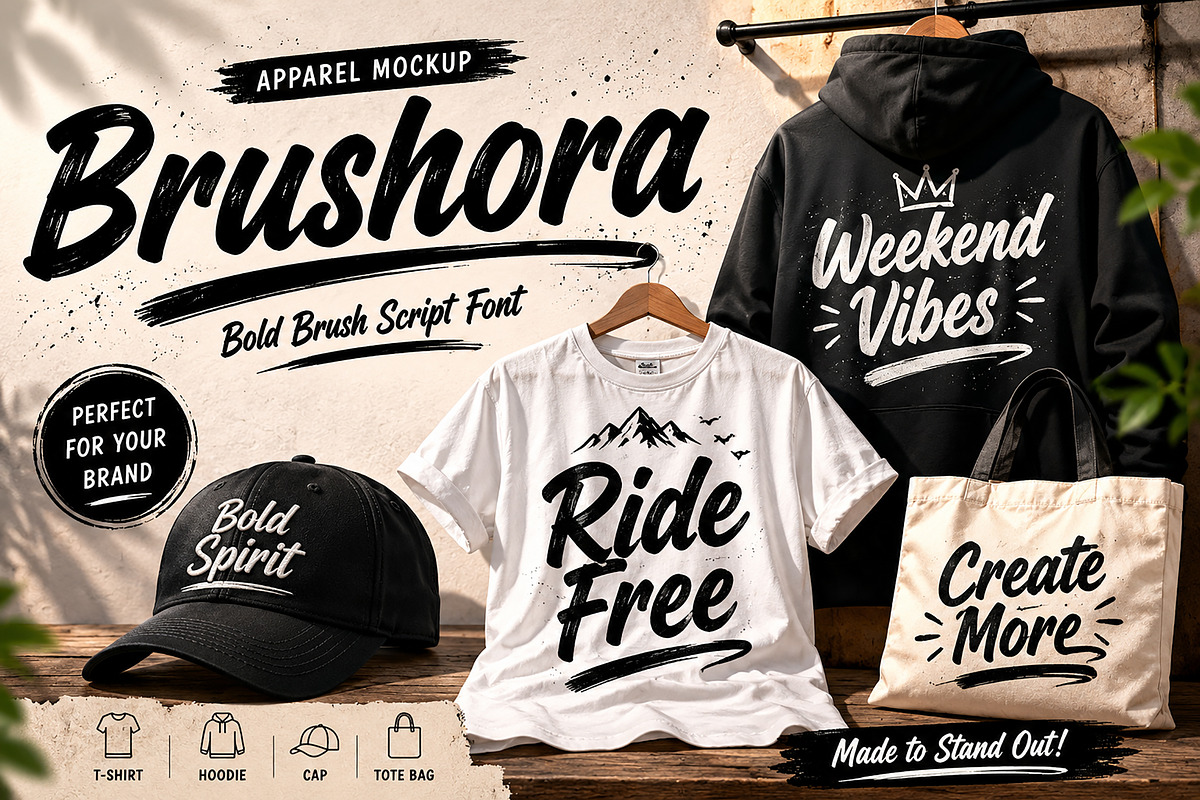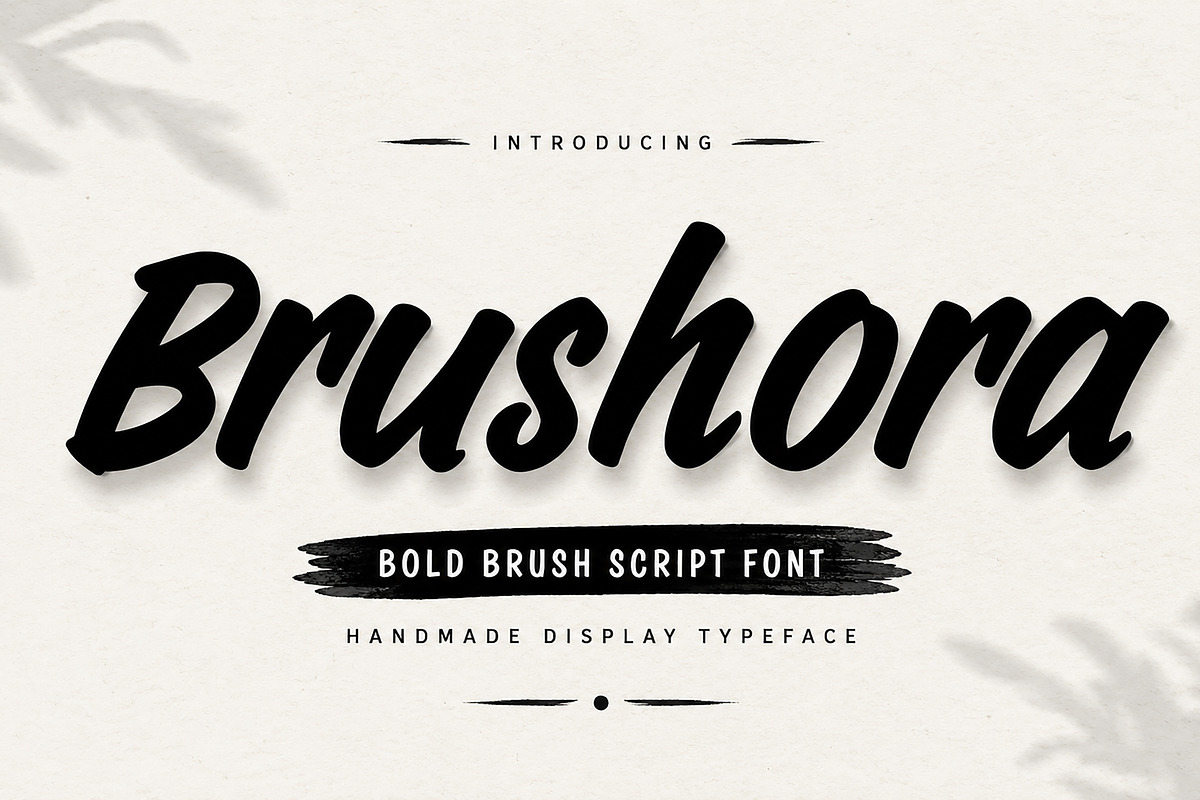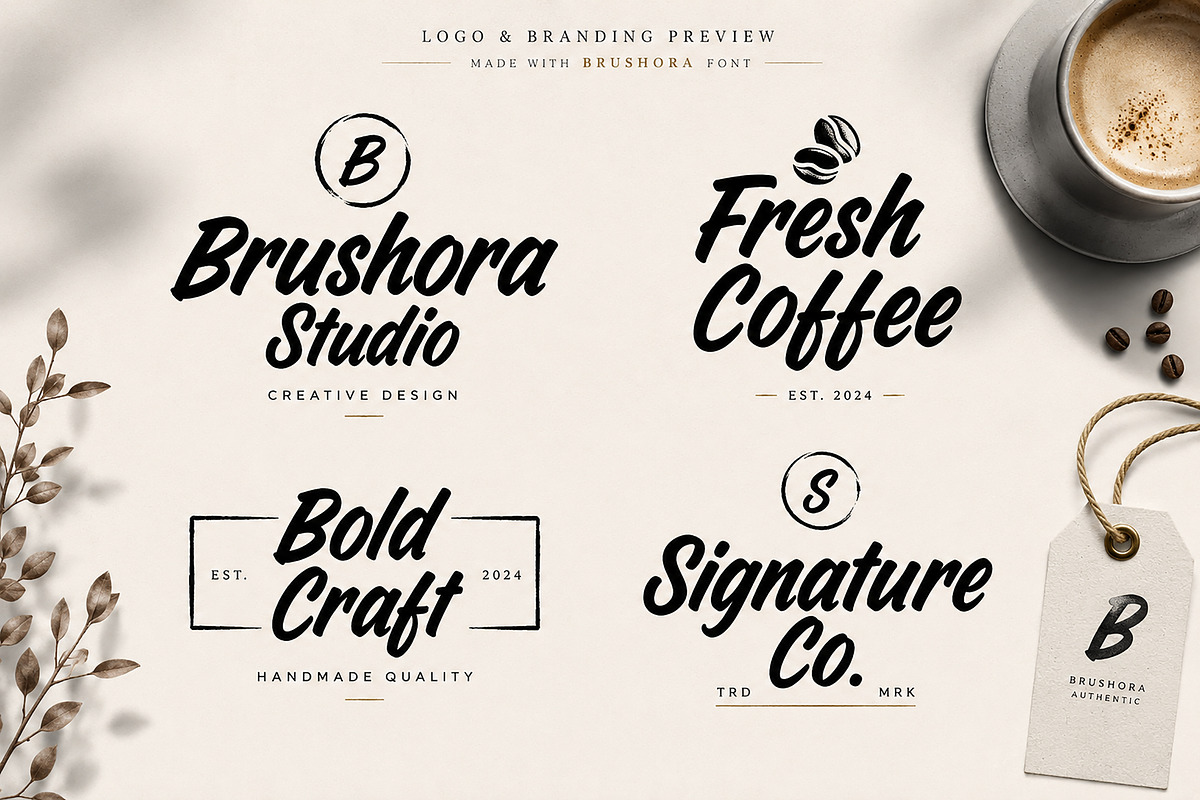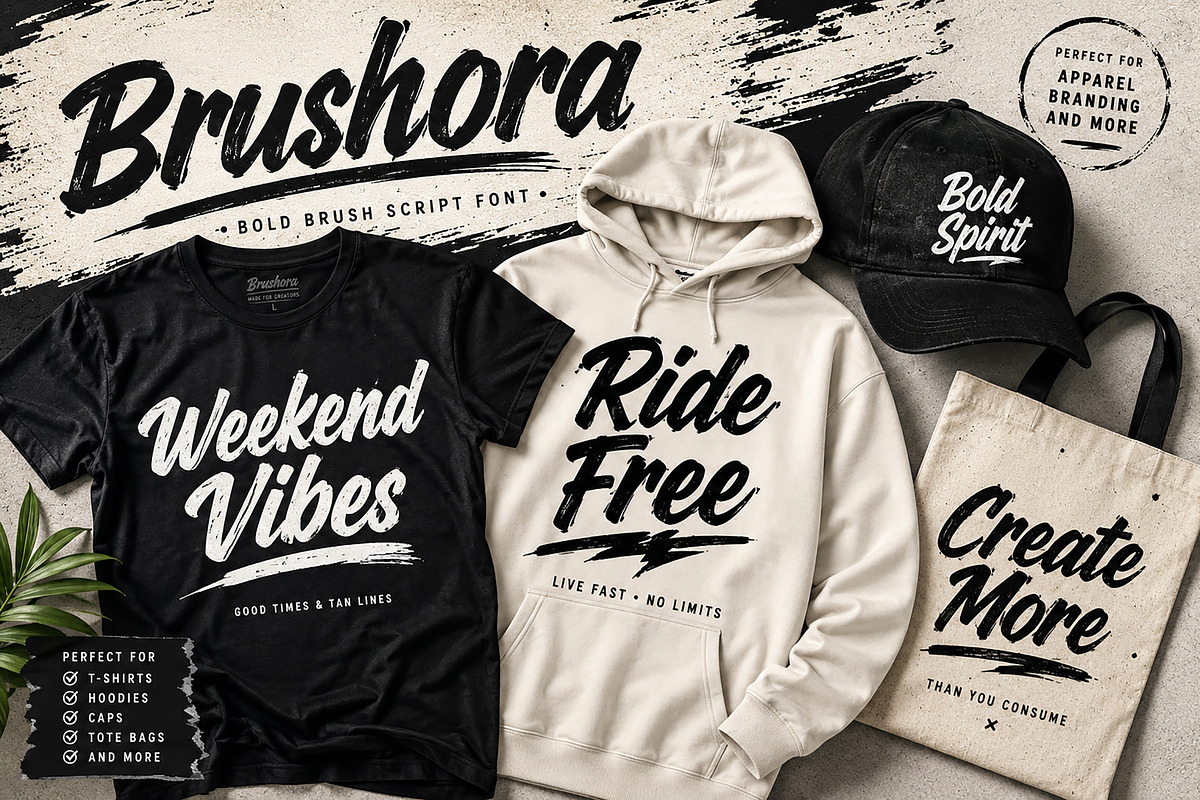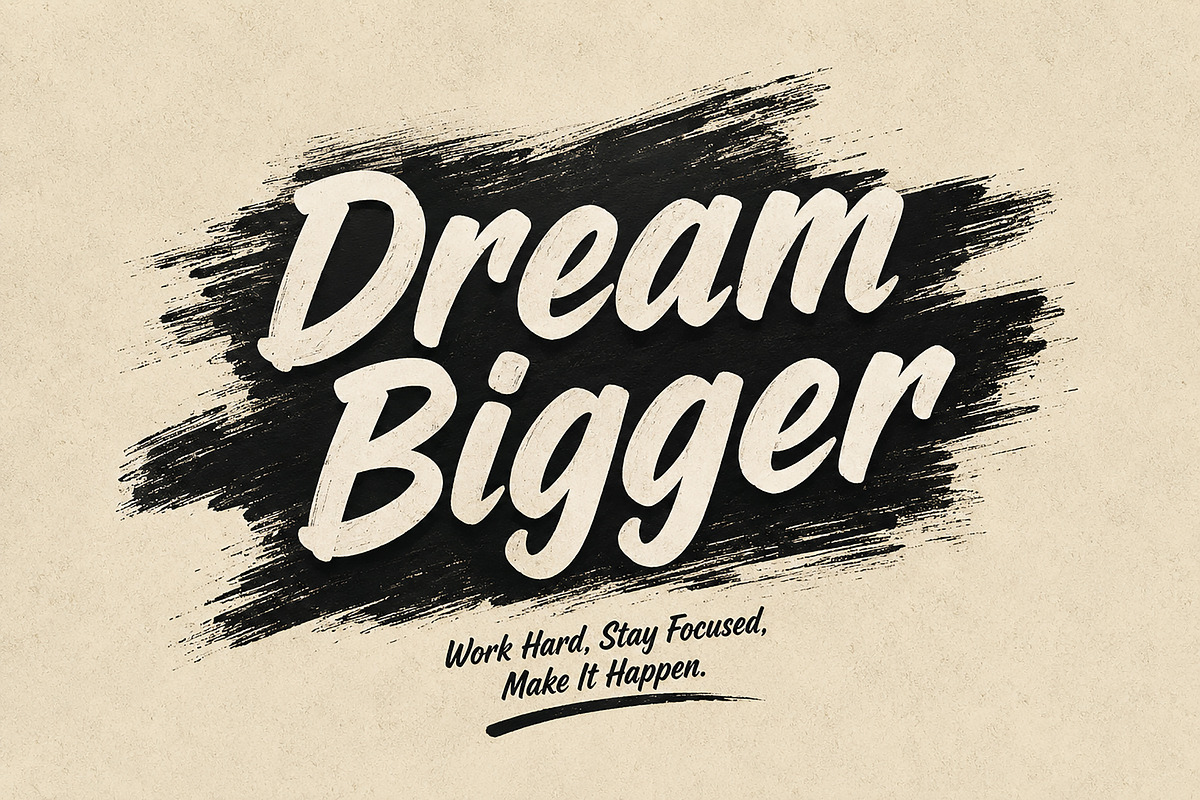
Brushora
Brushora – Bold Brush Script Font
Introducing Brushora, a bold and expressive brush script font designed to bring energy, personality, and handcrafted charm to your creative projects. With its smooth brush strokes, natural lettering flow, and strong visual impact, Brushora is perfect for creating eye-catching designs that feel authentic and modern.
Whether you're designing logos, branding materials, social media graphics, apparel, packaging, posters, quotes, or handmade product labels, Brushora delivers a stylish brush-lettered look that instantly grabs attention.
Its versatile handwritten style makes it ideal for both professional branding projects and creative personal designs. The bold curves and organic brush texture create a warm, confident, and artistic appearance that stands out across digital and print media.
Branding & Identity
T-Shirt Designs
Posters & Headlines
Inspirational Quotes
Signature Logos
Handmade Product Labels
Stickers & Cricut Projects
Website Headers
Marketing Materials
Smooth Brush Lettering Style
Easy to Read